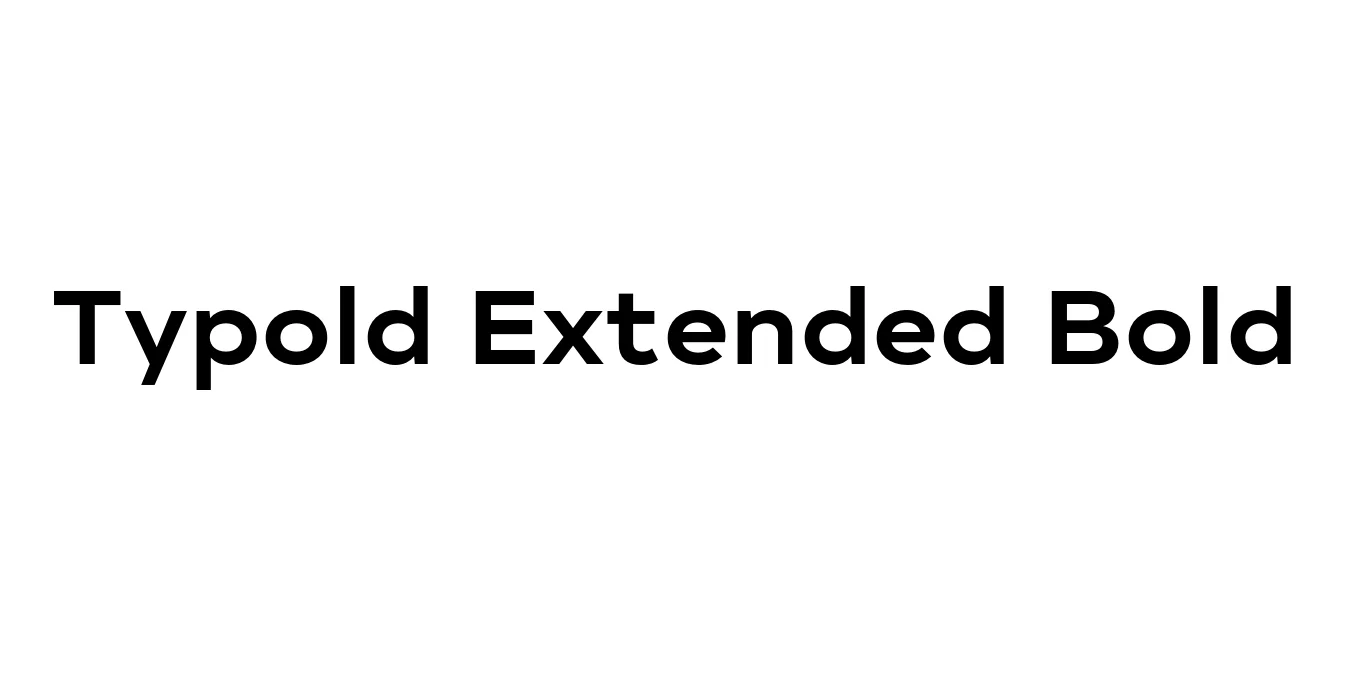
Typold Extended Bold
Designed by Jonathan Hill
Typold Extended Bold is a modern geometric sans-serif typeface designed by Jonathan Hill for The Northern Block. It represents a refined evolution of the geometric style, focusing on balance and technical precision. This specific variant offers a wider stance, providing a powerful and authoritative presence suitable for high-impact display settings and contemporary visual communication.
The design features high-contrast geometry and open apertures, making it highly legible even in its boldest weights. It was crafted to meet the demands of contemporary digital and print environments, where clarity and a strong visual identity are paramount. Its construction is rooted in mathematical proportions, ensuring a clean, sophisticated, and professional aesthetic across various media platforms.
Typold Extended Bold Best Uses
Perfect for high-impact titles and large-scale headers.
Ideal for creating strong and memorable visual identities and logos.
Great for prominent interface elements, navigation, and call-to-action buttons.
Effective for large-scale advertising, billboards, and promotional materials.